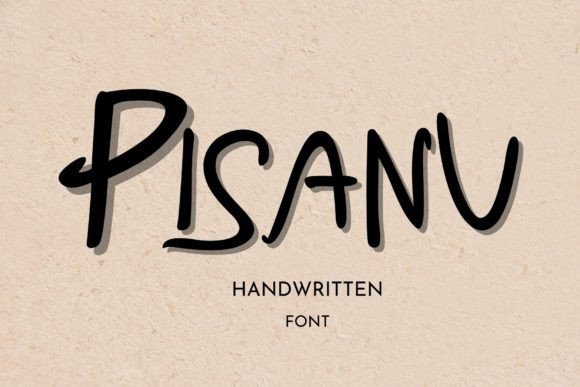
Pisanu Font: The Timeless Handwritten Font for Stunning Designs
In the world of typography, fonts play a crucial role in making or breaking a design. A beautiful font can elevate your design, making it more visually appealing and engaging. One such font that has gained popularity among designers is the Pisanu Font. In this article, we’ll explore what makes Pisanu Font special, its features, and how you can use it to create spectacular designs.
What is Pisanu Font?
Pisanu Font is a beautiful handwritten font that has captured the hearts of designers worldwide. Its incredibly distinct and timeless style makes it ideal for a wide range of design projects, from logos and wedding stationery to photography watermarks and modern websites.
Key Features of Pisanu Font
- Handwritten style: Pisanu Font boasts a beautiful, handwritten style that adds a personal touch to your designs.
- Distinctive and timeless: The font’s unique style ensures that your designs will stand out and remain relevant for years to come.
- Versatile: Pisanu Font is suitable for various design projects, including logos, wedding stationery, photography watermarks, and modern websites.
The Benefits of Using Pisanu Font
Why Choose Pisanu Font?
- Emotional connection: The handwritten style of Pisanu Font creates an emotional connection with your audience, making your designs more relatable and engaging.
- Unique identity: The font’s distinctive style ensures that your designs stand out from the crowd, giving you a unique identity.
- Easy to read: Despite its unique style, Pisanu Font is easy to read, making it perfect for body text and headlines.
Using Pisanu Font for Different Design Projects
Design Projects that Pisanu Font is Perfect for:
- Logos: Create a stunning logo for your brand with Pisanu Font, making it instantly recognizable.
- Wedding stationery: Add a touch of elegance to your wedding stationery, including invitations, thank-you cards, and more.
- Photography watermarks: Use Pisanu Font to create beautiful watermarks for your photos, adding a professional touch.
- Modern websites: Elevate your website’s design with Pisanu Font, making it more visually appealing and engaging.
Tips for Using Pisanu Font Effectively
Tips for Using Pisanu Font:
| Font Name | Pisanu Font |
| Author | Pui Art |
In conclusion, Pisanu Font is a beautiful handwritten font that can elevate your designs and make them more visually appealing. Its distinctive and timeless style makes it perfect for a wide range of design projects, from logos and wedding stationery to photography watermarks and modern websites. By following the tips outlined in this article, you can use Pisanu Font to create spectacular designs that leave a lasting impression.